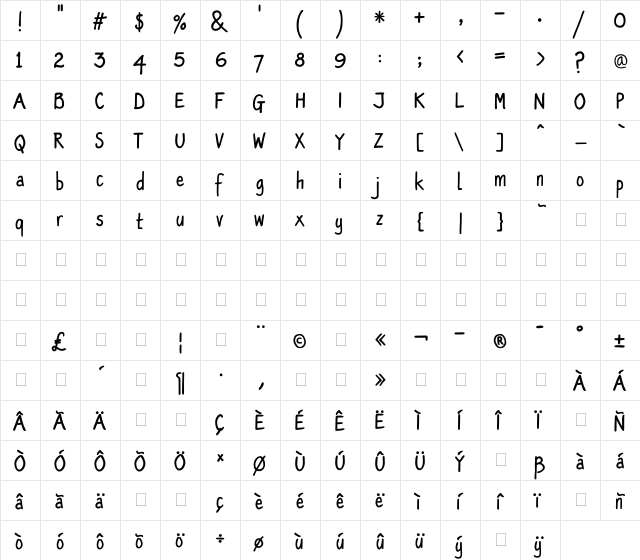
PT Script (Unreg.) Eclipse Regular
Design Context for PT Script (Unreg.) Eclipse Typeface
PT Script (Unreg.) Eclipse flows with the natural rhythm of handwritten lettering, making it ideal for designs that call for warmth and personal expression.
Font Pairing: Combine PT Script (Unreg.) Eclipse with a simple geometric sans for maximum contrast — the tension between flowing curves and clean structure is a classic typographic pairing.
Pro Tip: Use PT Script (Unreg.) Eclipse for short runs of text — names, titles, or taglines. Extended body copy in script faces tires the eye quickly.